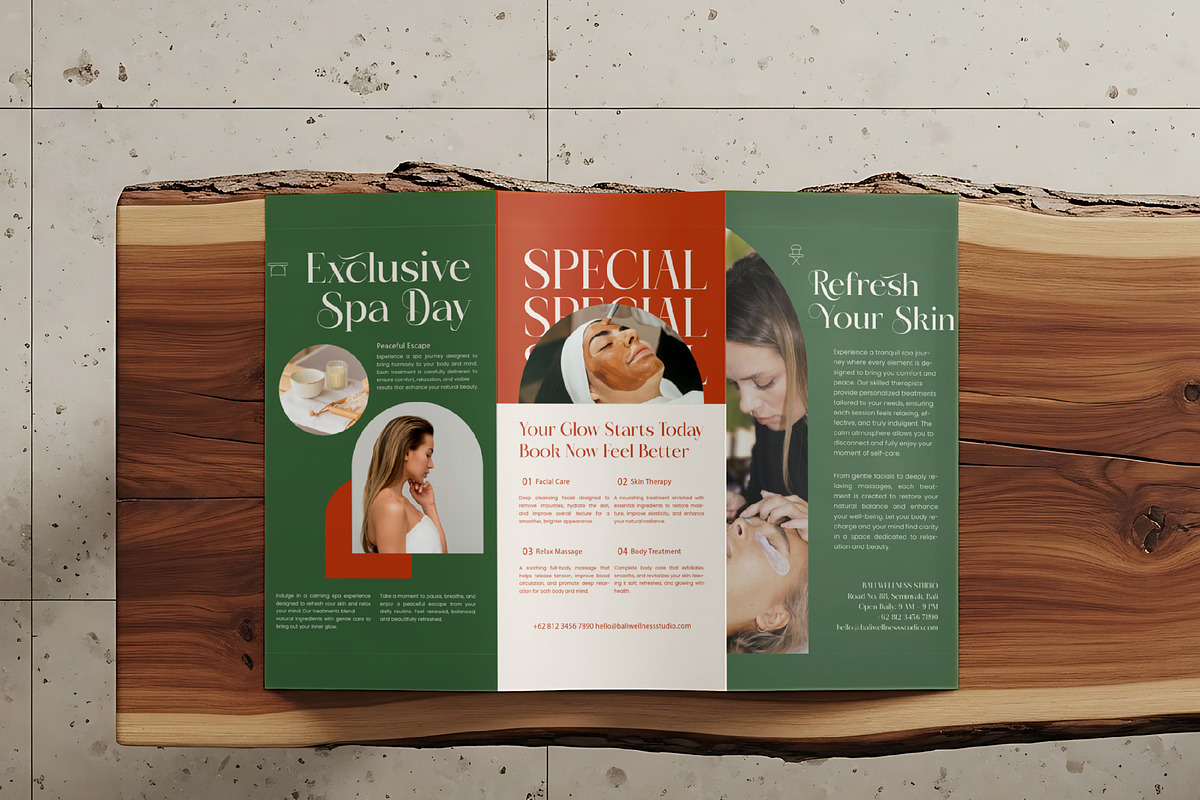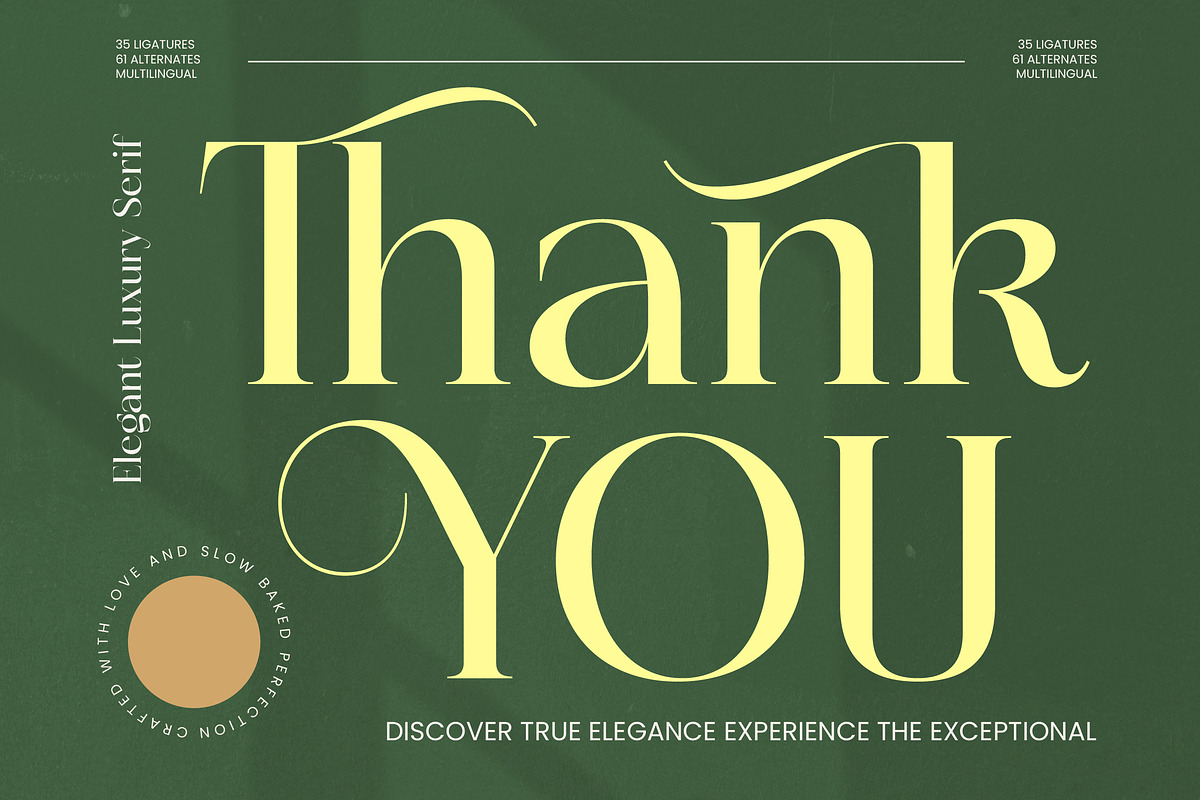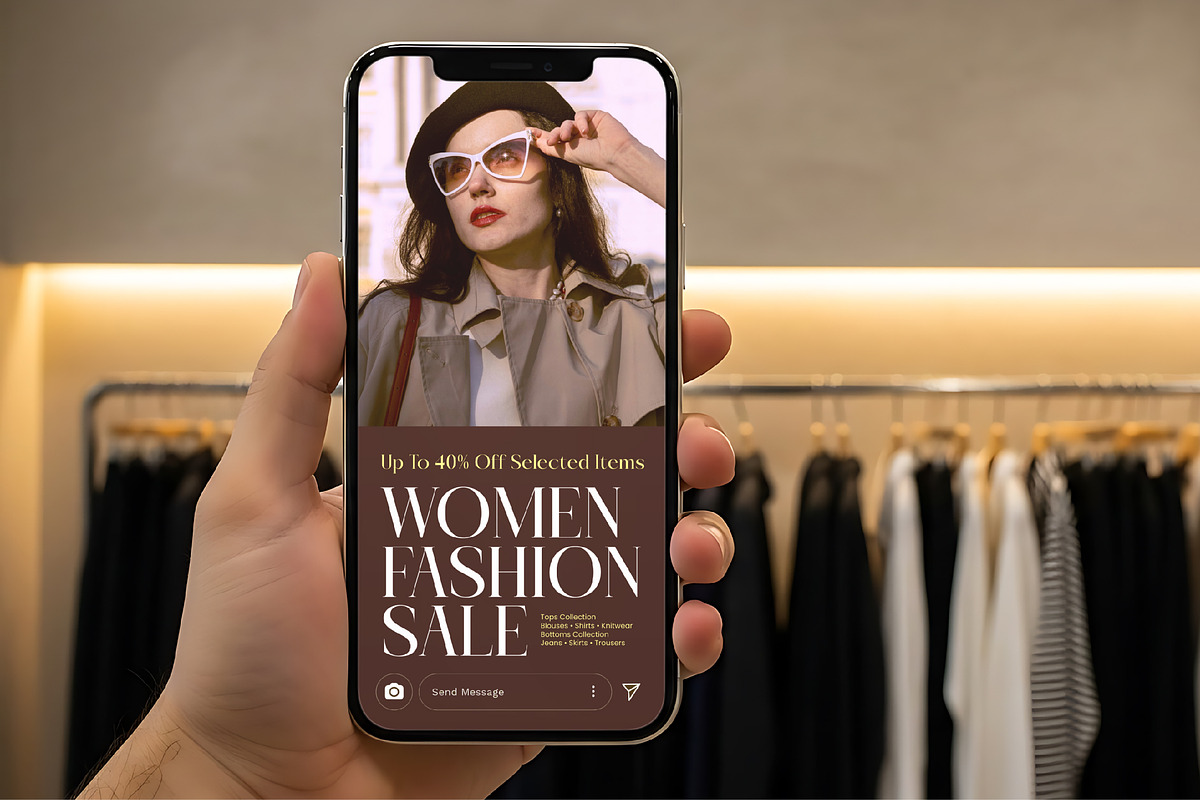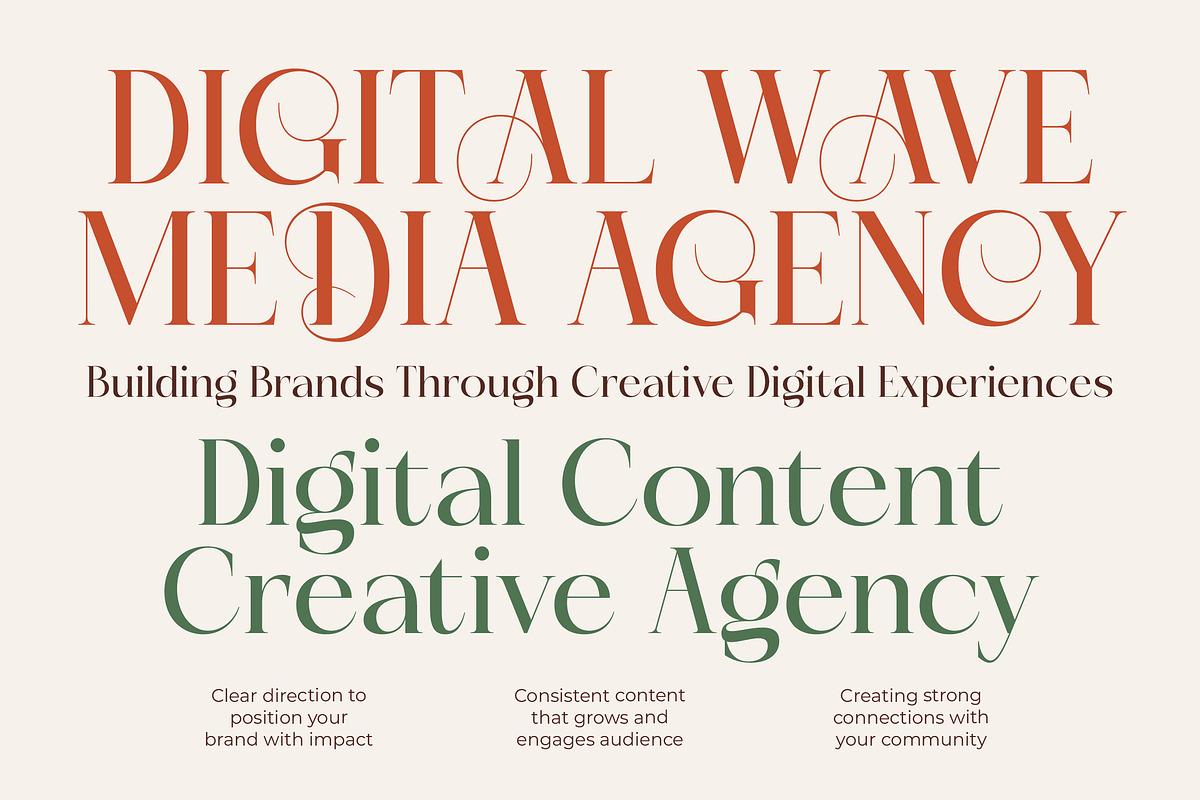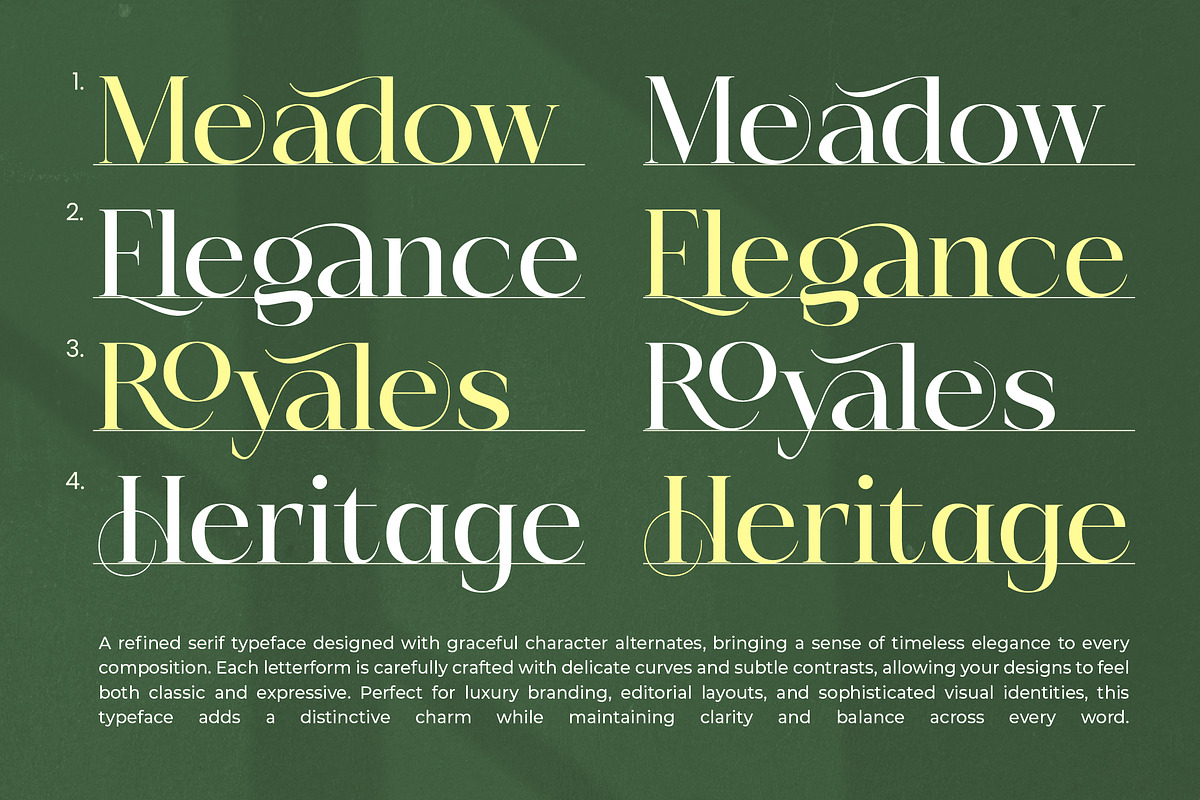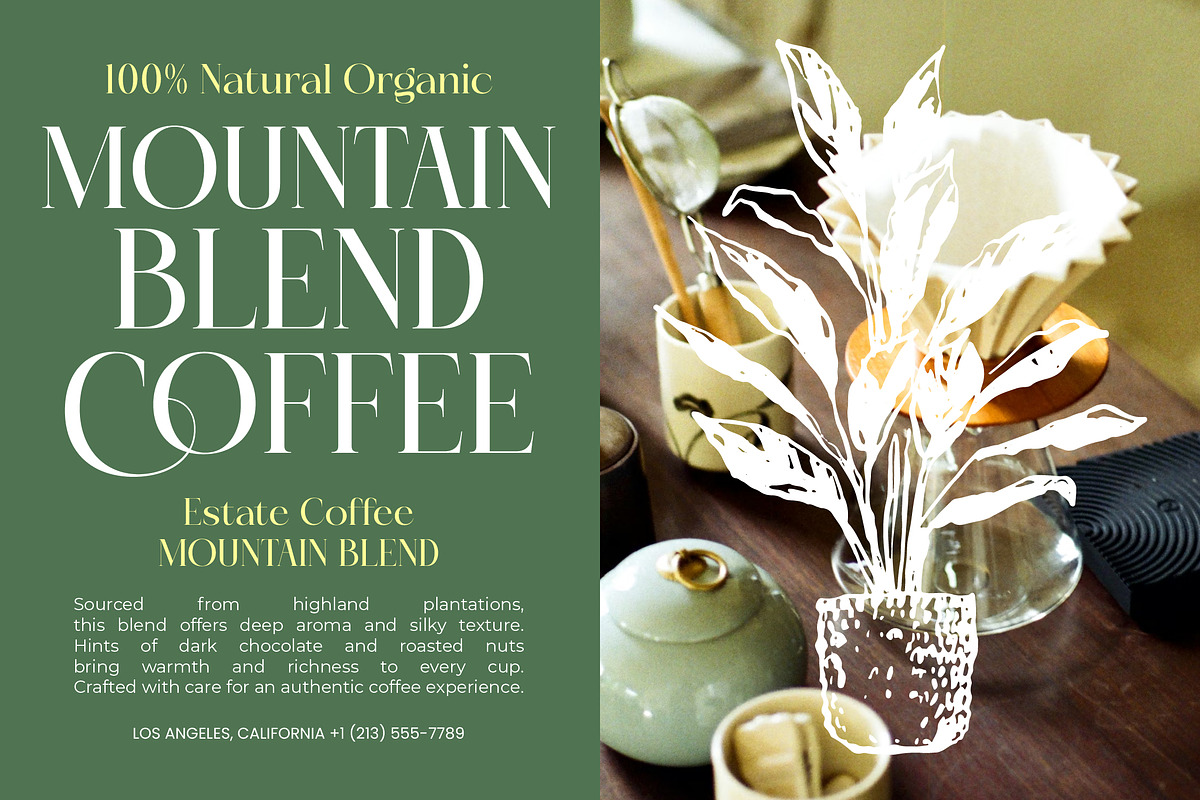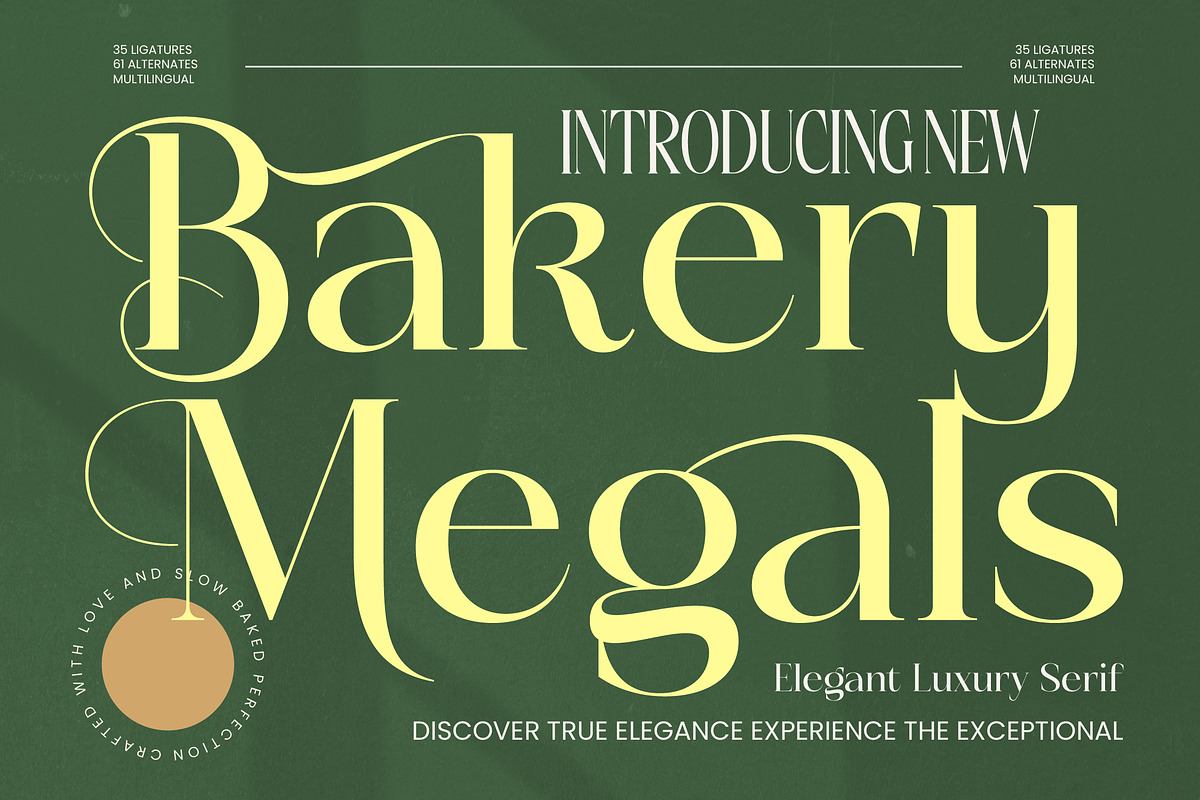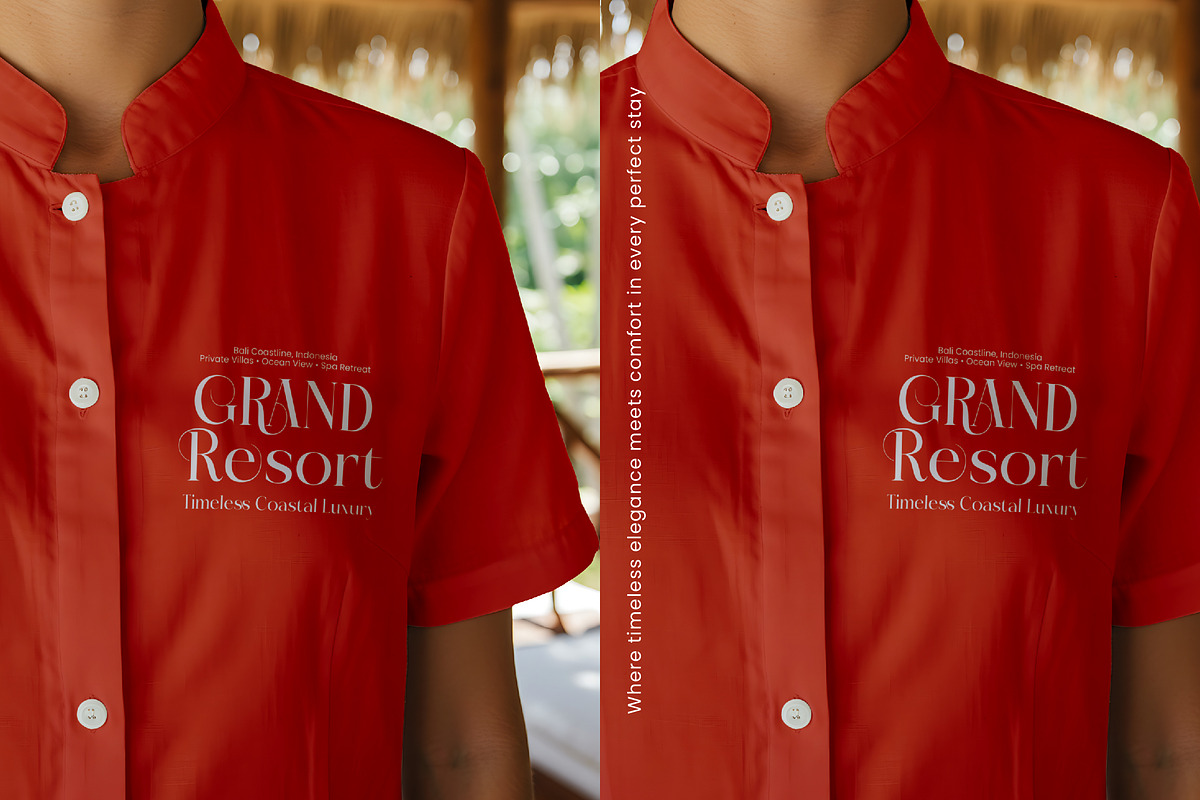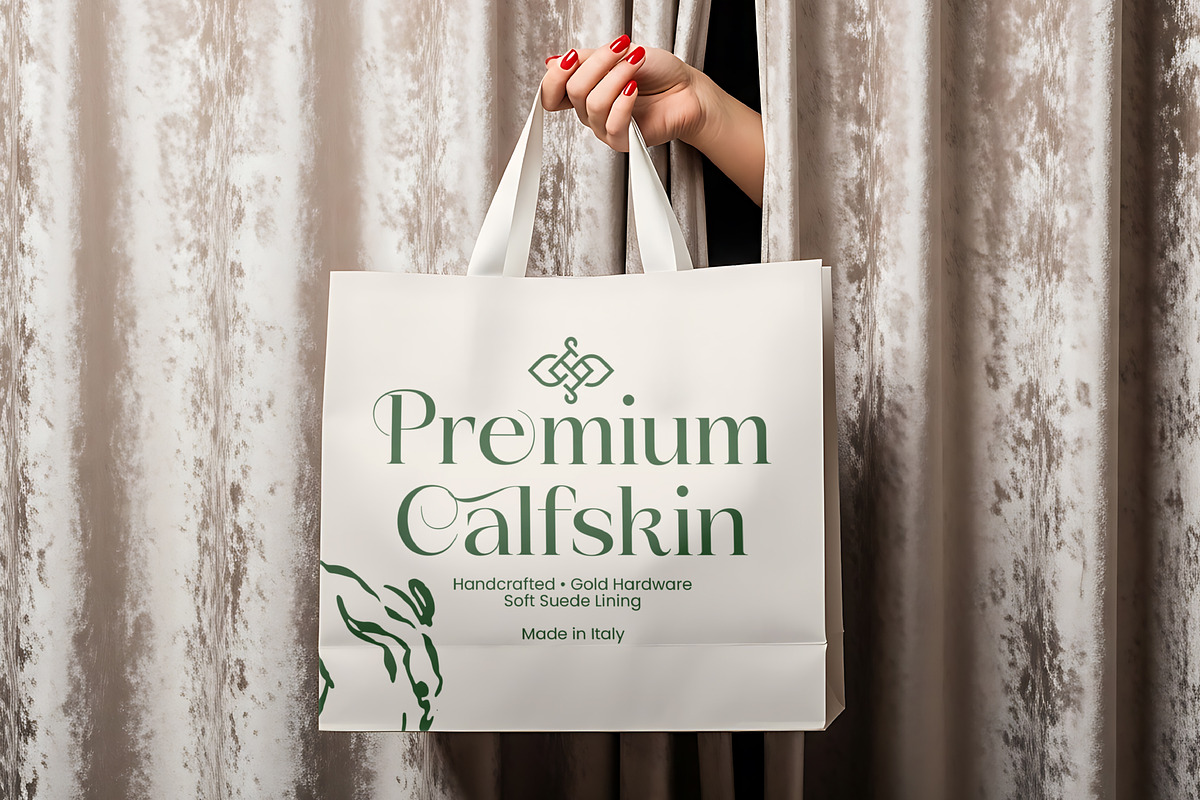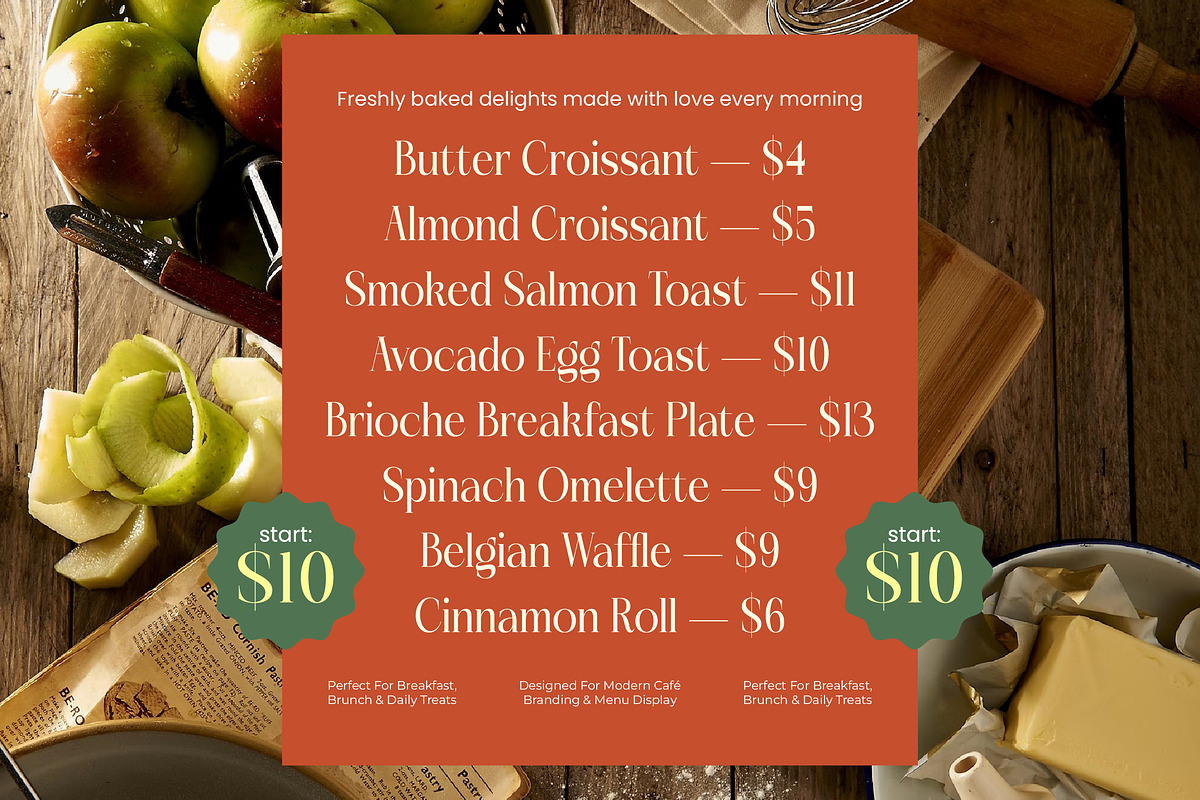
Bakery Megals Elegant Luxury Serif
Bakery Megals – Elegant Luxury Serif , Bakery Megals invites you into a world of refined aesthetics where every curve and stroke tells a story of timeless grace. This typeface is an exquisite balance of classical structure and modern fluidity, making it the ultimate choice for designers who demand excellence in their visual narratives.
Drawing inspiration from the meticulous craft of artisanal heritage, the atmosphere of this font evokes the polished serenity of high-end editorial houses and luxury boutiques. It captures a sense of slow-baked perfection, where every detail is intentionally placed to create a harmonious and inviting visual experience.
This modern serif display is a masterclass in luxury typography, featuring a high-contrast serif design that ensures a powerful branding impact. As a versatile editorial font, it brings a sophisticated edge to headlines, ensuring your message is delivered with both clarity and an unmistakable sense of prestige.
Keeping pace with the current modern serif trend, this typeface elevates the standard for editorial display fonts through its unique, character-driven typography. It bridges the gap between vintage charm and contemporary minimalism, allowing brands to stay relevant while maintaining an air of classic distinction.
Perfect for creating an iconic logo design or a cohesive identity for branding, this font also shines in high-end editorial spreads and premium packaging. Its delicate swashes make it an ideal candidate for wedding invitations and fashion branding that requires a touch of bespoke elegance.
Technical excellence is at the heart of this font, which includes 35 creative ligatures and 61 character alternates to give your designs a custom feel. With a comprehensive suite of decorative swashes and full multilingual support, it provides all the international characters needed for a truly global reach.